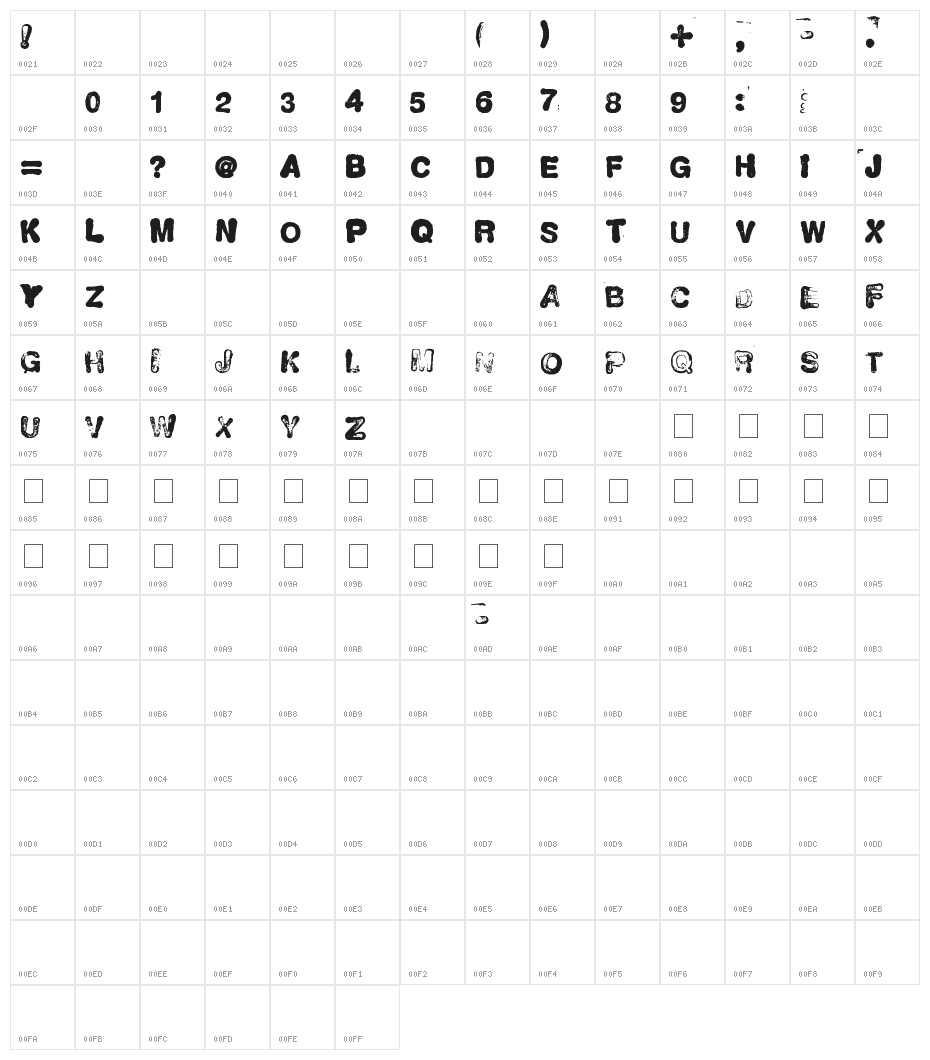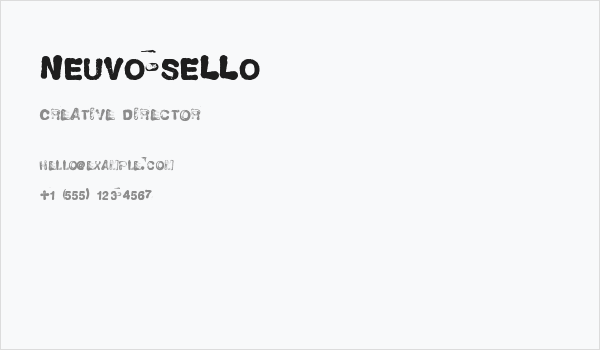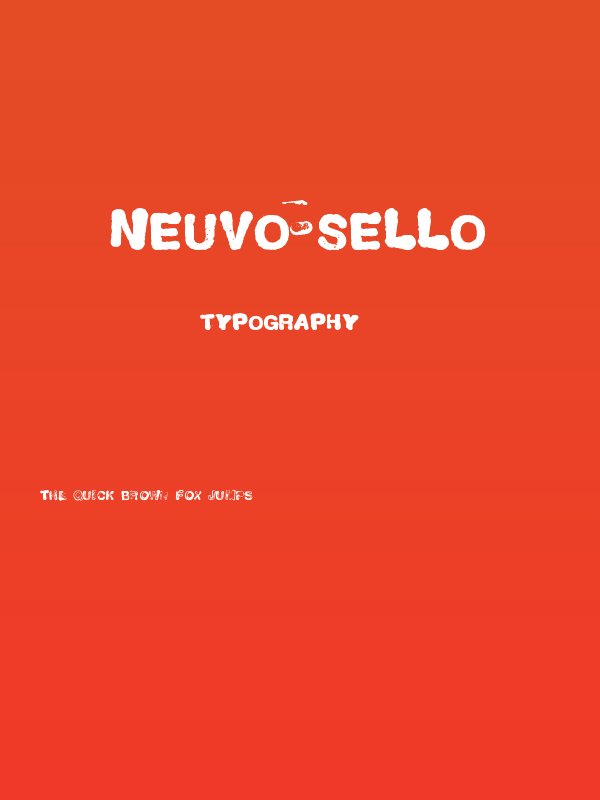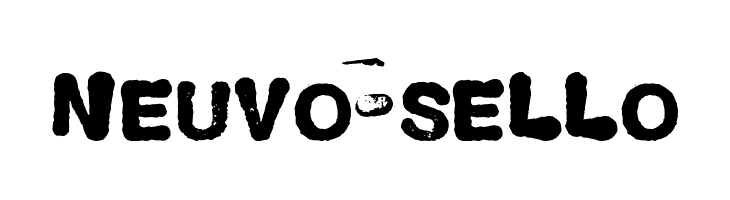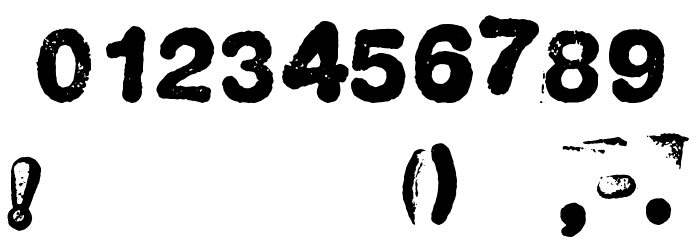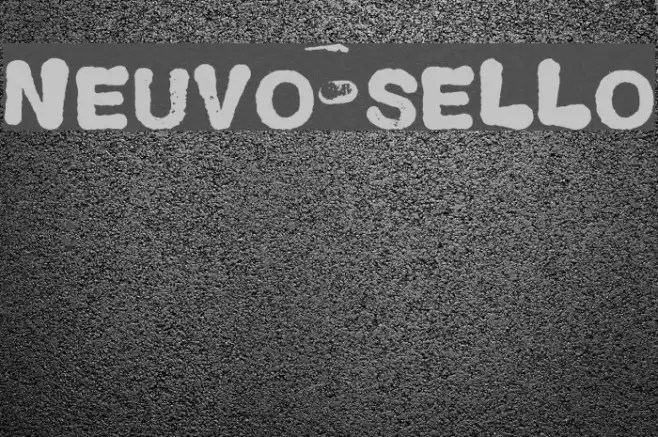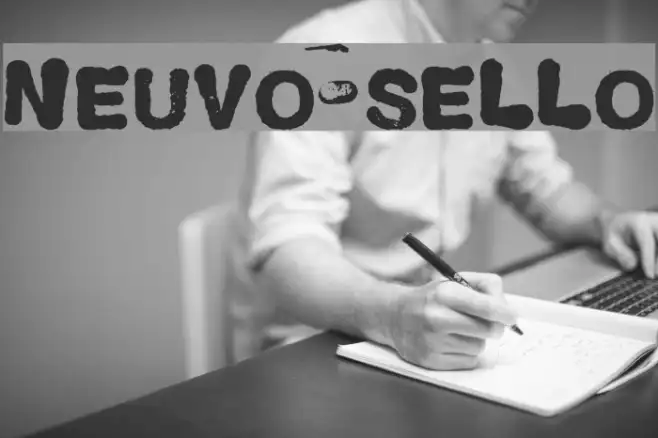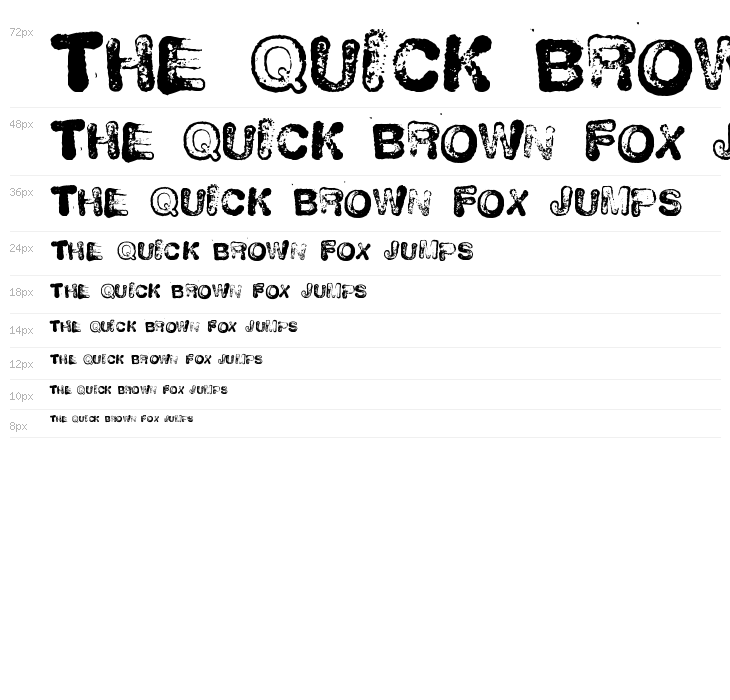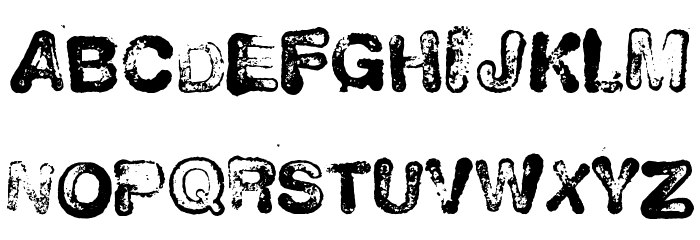
NEUVO-SELLO Font
NEUVO-SELLO Description
This font features a bold and distressed style, reminiscent of vintage rubber stamps. Each character is uniquely textured, giving it a rugged and worn appearance. The uppercase letters are prominent and impactful, while the lowercase letters maintain the same distressed aesthetic. Numbers and special characters follow the same design, ensuring consistency across all elements. The font's rough edges and uneven texture contribute to its overall handmade feel, making it ideal for projects that require a rustic or industrial touch.
| Use Case | Logos, Posters, Branding |
| Proposed Projects | Perfect for vintage-themed posters, industrial design projects, branding for artisanal products, and any creative work that benefits from a rugged, handmade look. |